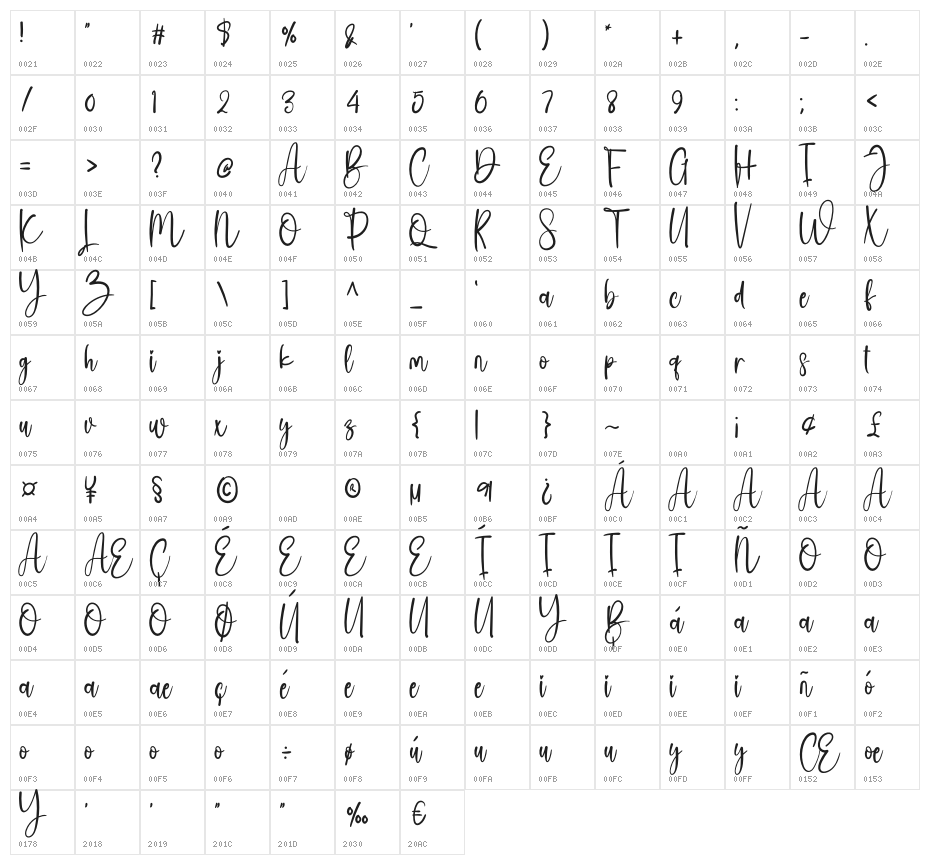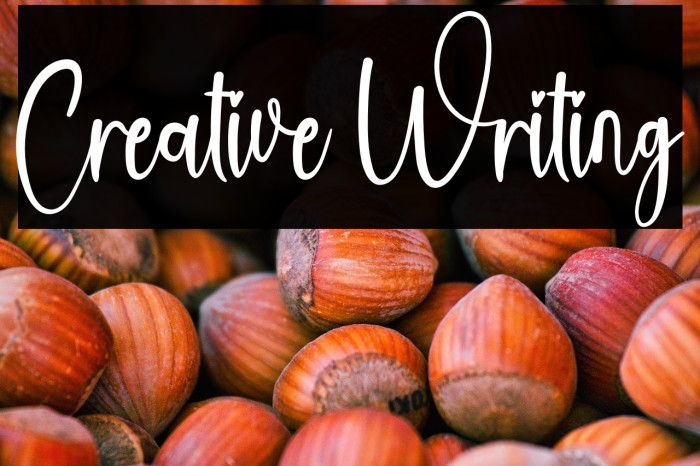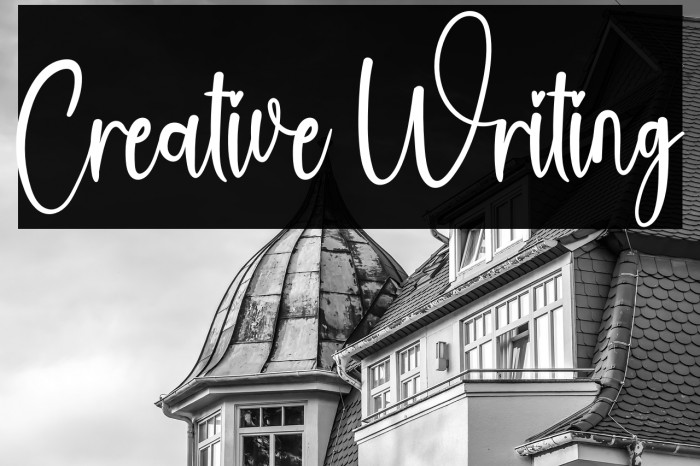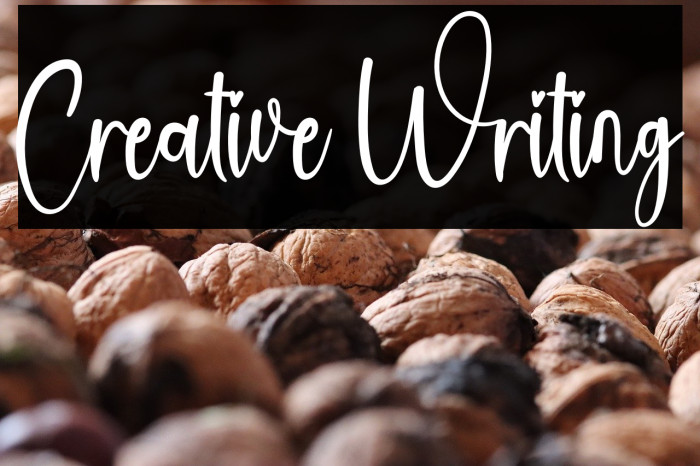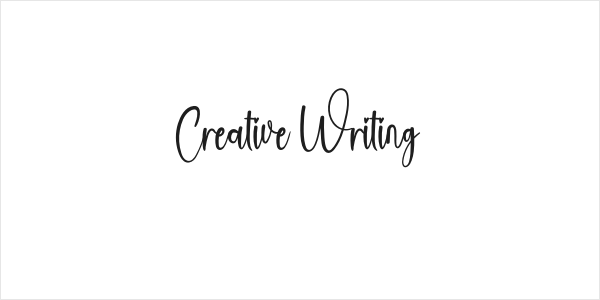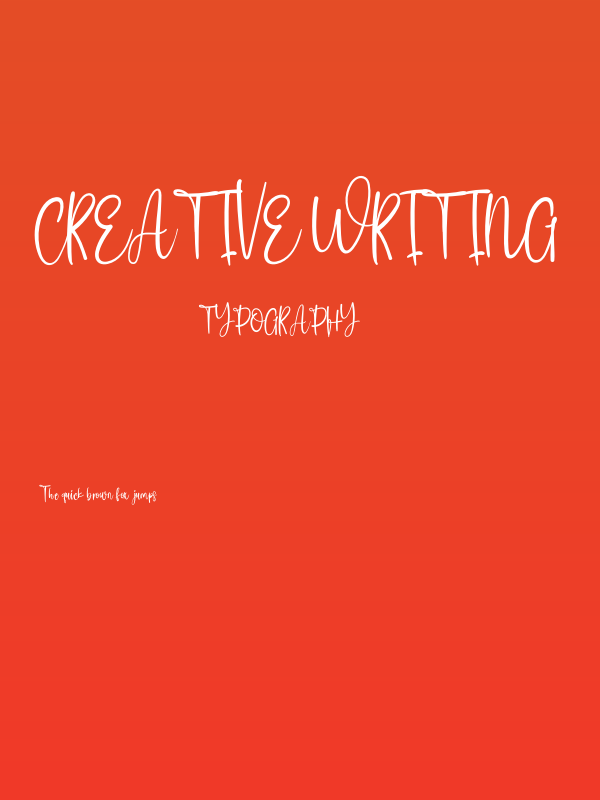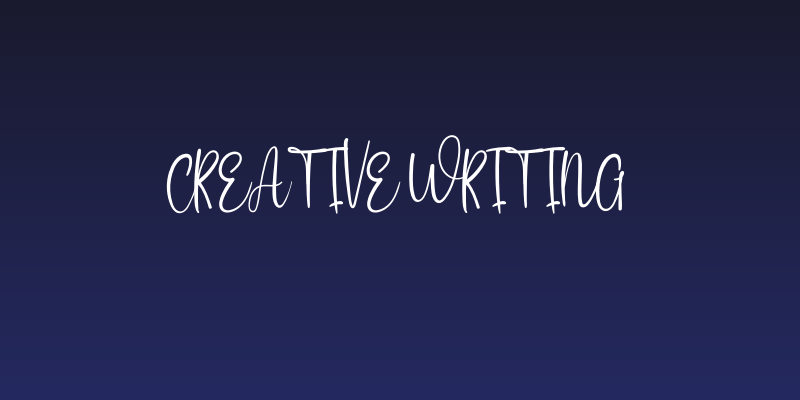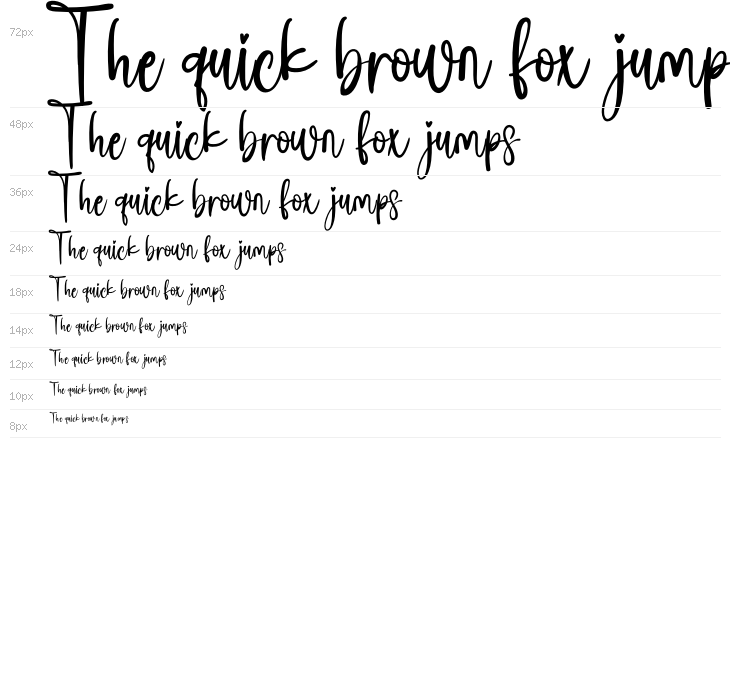
Creative Writing Font
Creative Writing Description
This font exudes a playful and whimsical charm, characterized by its flowing, cursive style that mimics natural handwriting. The letters are interconnected with smooth, sweeping curves, giving it a lively and dynamic appearance. The uppercase letters are tall and elegant, while the lowercase letters maintain a consistent, rounded form. Numbers and special characters are crafted with the same fluidity, ensuring a cohesive look throughout. The overall design is both artistic and approachable, making it ideal for projects that require a personal touch.
| Use Case | Logos, Headlines, Creative projects |
| Proposed Projects | Ideal for greeting cards, invitations, personal branding, and creative writing projects. |